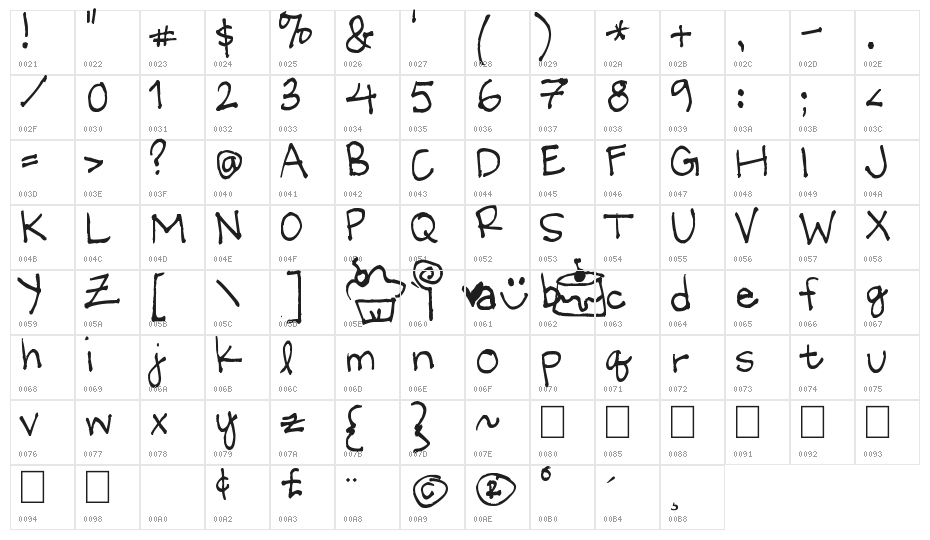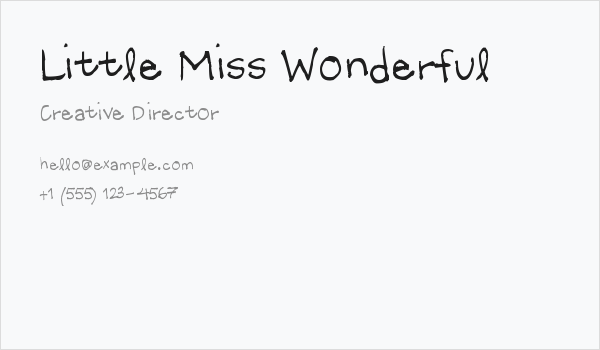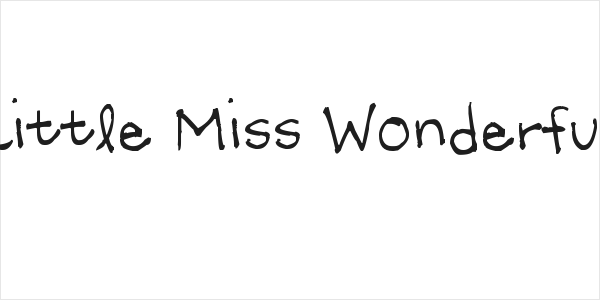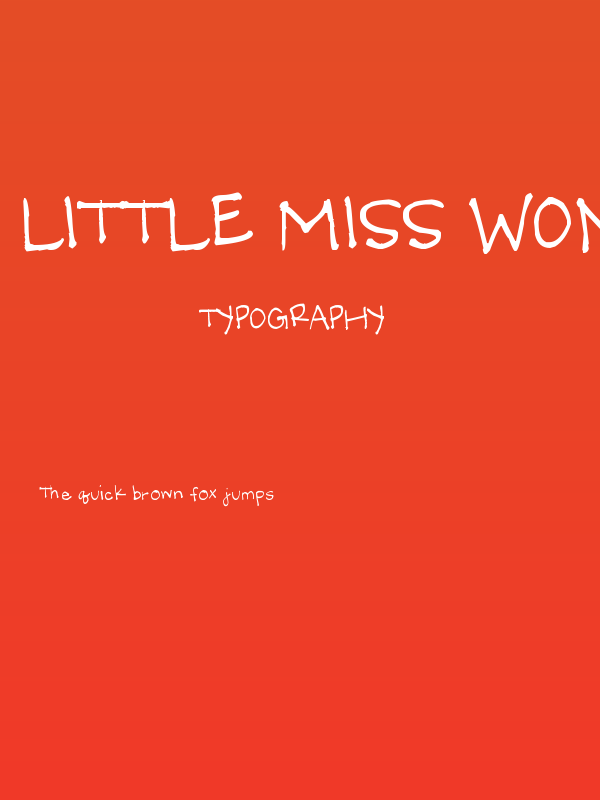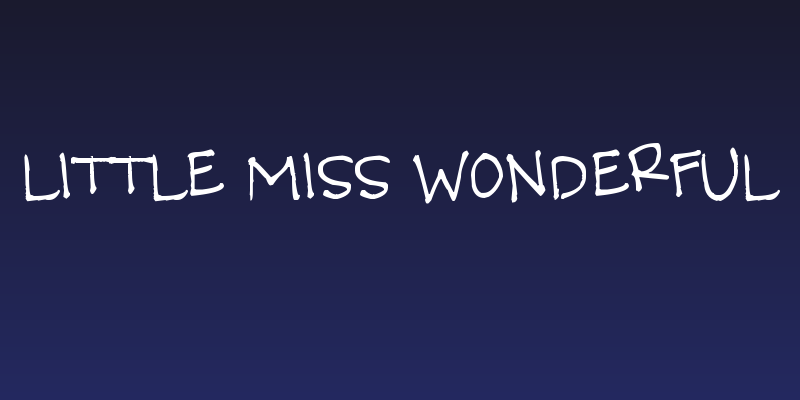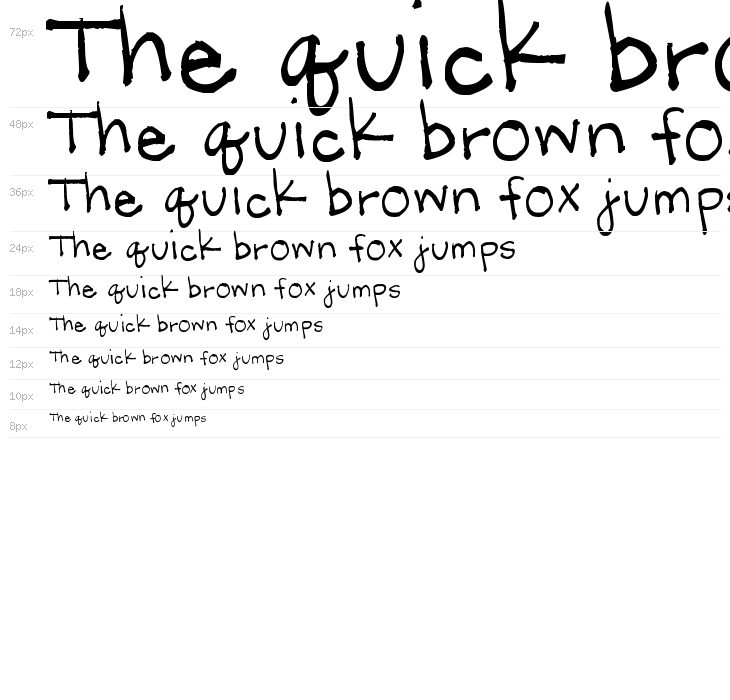
Little Miss Wonderful Font
Little Miss Wonderful Description
This font exhibits a playful and casual handwritten style, characterized by its irregular strokes and slightly uneven baseline. The letters have a whimsical appearance, with varying stroke thickness that adds to its informal charm. The uppercase and lowercase letters maintain a consistent style, while the numerals and special characters blend seamlessly into the overall design. This font's organic and spontaneous look makes it ideal for projects that require a personal touch or a relaxed vibe.
| Proposed Projects | Ideal for greeting cards, children's books, casual invitations, and personal blogs. |